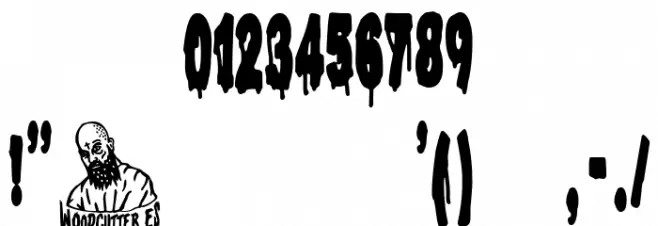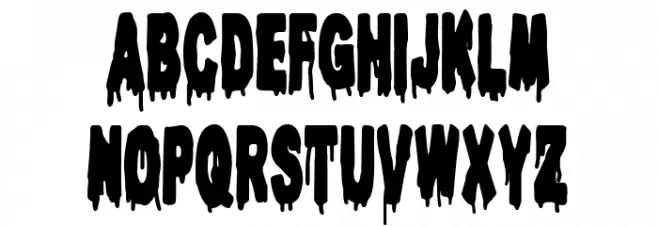
Toxic Cemetery Font
Toxic Cemetery Description
A bold, dripping display font with irregular edges and a horror-inspired, liquid effect, giving the impression of melting or oozing letters. The characters are uppercase, thick, and have a playful yet eerie appearance.
A bold, dripping horror-themed display font with a melting effect.
- Font: Toxic Cemetery
- Proposed Projects: Halloween posters, horror movie titles, haunted house flyers, spooky event invitations, themed party decor.
- Overall Style: Decorative, Horror, Playful
- Use Case: Headlines, Posters, Logos, Event Titles